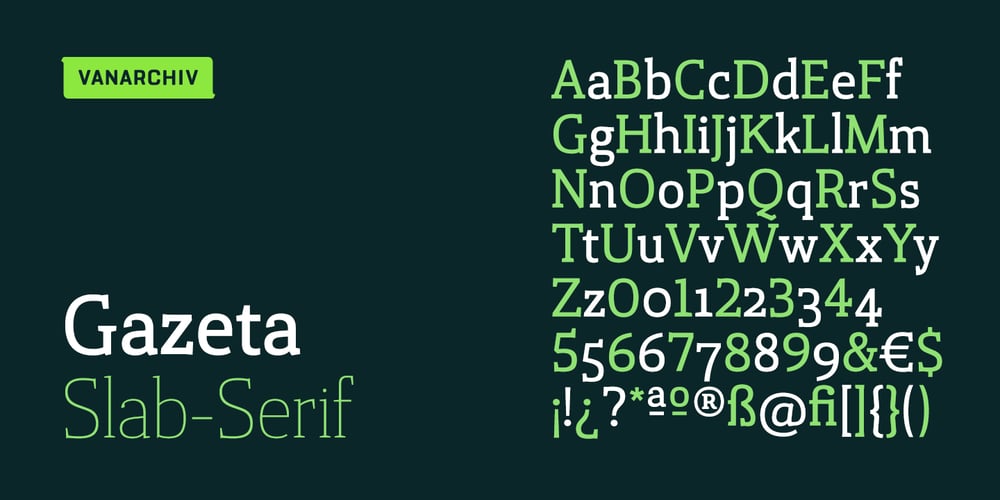
Gazeta Slab Font Family was designed by Ricardo Santos and published by Vanarchiv. Gazeta Slab contains 18 styles and family package options. This humanist slab-serif style is an extension from Gazeta font family, the letterform are more sharp, racional and mechanical. Italics are having small differences from roman letterforms, the characters are slightly more narrow (weight) and the proportions are less open (width).